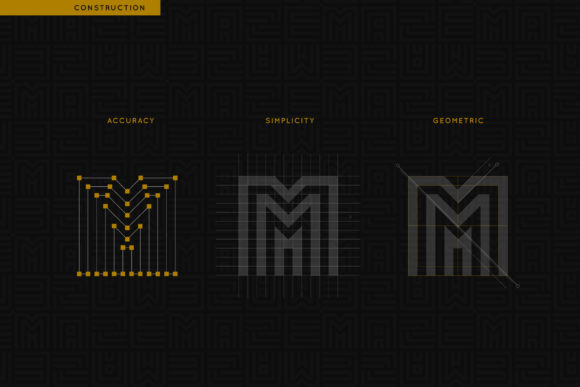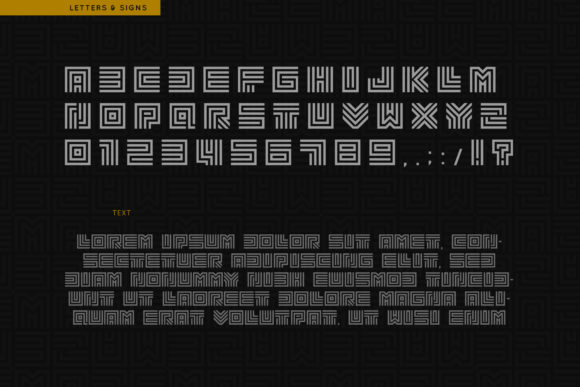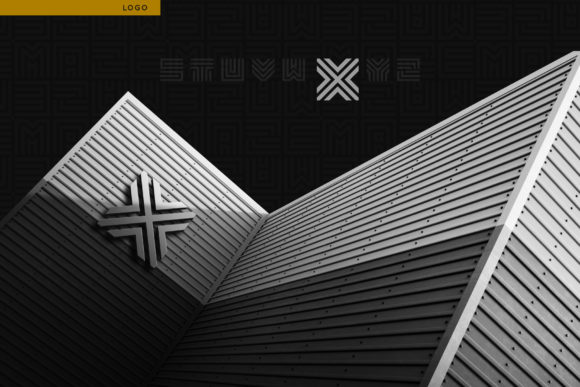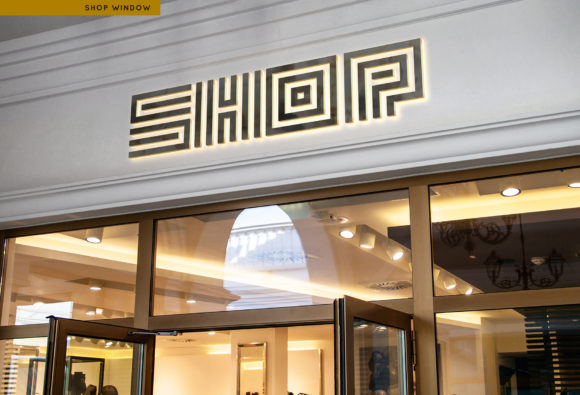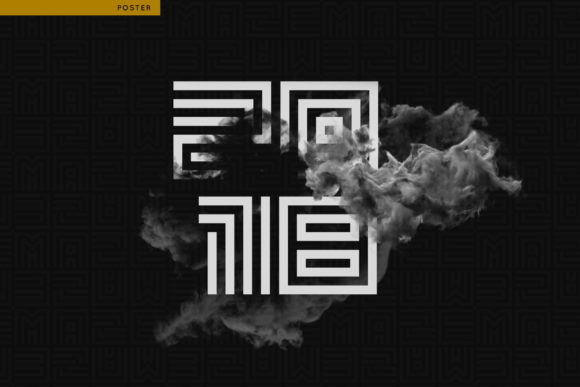
Introduction to Maze Font
Maze is a geometrical and incredibly original display font.
This original look will appeal to a wide range of crafty ideas, from letterheads and titles, to stationery .
Key Features of Maze Font